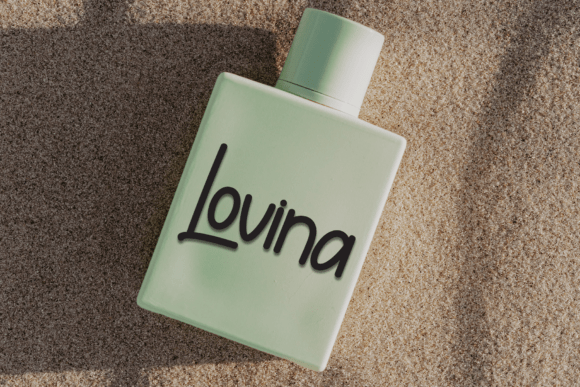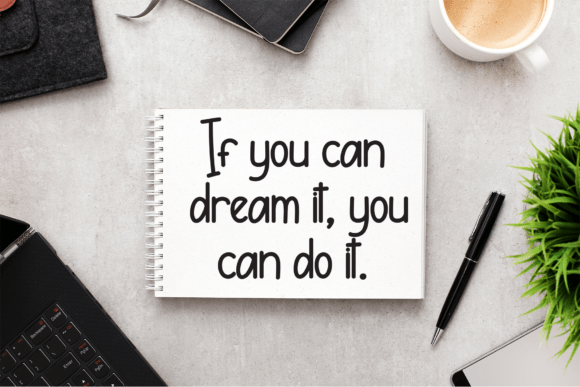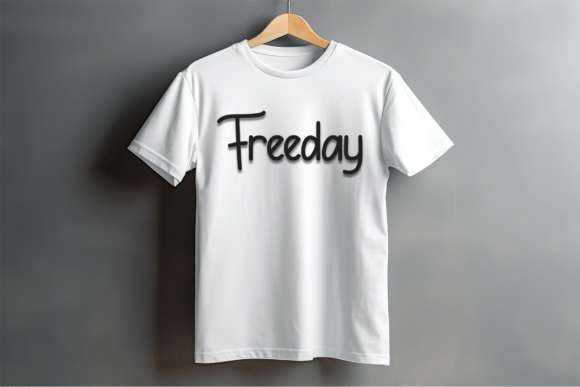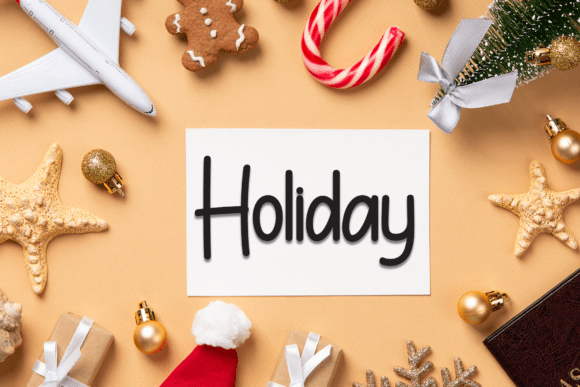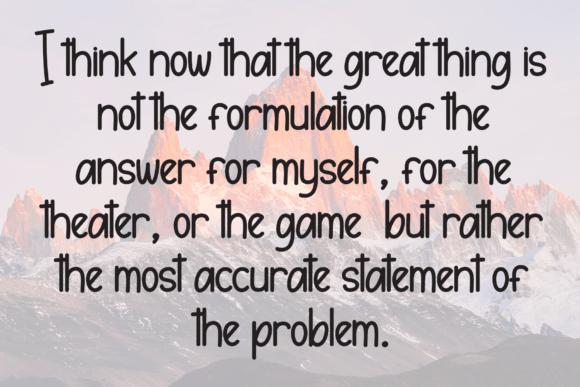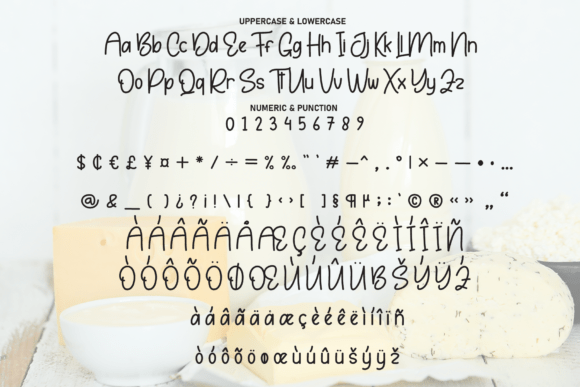
Discover the Whimsical Charm of Buttercup Font
Have you ever stared at a blank page, struggling to find the perfect words to express your emotions? Maybe it’s a heartfelt thank-you note, a wedding invitation, or a birthday card. Whatever the occasion, there’s something special about putting your thoughts into words that truly reflect your personality.
That’s where the delightful Buttercup Font comes in – a handwritten display font that brings a touch of playfulness and warmth to your designs. This charming typeface is designed to make your creations feel more personal and inviting, perfect for projects that require a sprinkle of fun and spontaneity. With the Buttercup Font, you can add a dash of whimsy to your designs and make a lasting impression on your audience.
As a designer, you know the value of a well-chosen font in elevating your work. The Buttercup Font is a valuable addition to your toolkit, offering a unique and charming style that’s sure to captivate your viewers.
Buttercup Font Key Features
- Unique Characteristics: The Buttercup font features a distinctive, elegant design with a mix of modern and vintage elements, making it suitable for various design projects, from wedding invitations to magazine layouts.
Designer Review: Buttercup Font
I’ve worked with the Buttercup Font for a few projects now, and overall, I think it’s a sweet addition to any design. ✨ The font’s playful and whimsical nature makes it perfect for brands that want to convey a sense of fun and approachability. It’s great for use in headings and titles, where its bold lines and rounded edges really shine.
One of my favorite things about Buttercup is its versatility. ✨ It comes in a range of weights and styles, making it easy to adapt to different design contexts. From formal to informal, Buttercup can handle it all with ease.
- ⚠️ Inconsistent spacing: I’ve noticed that the font’s spacing can be a bit wonky at times, especially in longer blocks of text.
- ⚠️ Limited language support: While Buttercup is great for English, I’ve found that it struggles with certain languages that require more complex character sets.
Overall, I think Buttercup is a solid choice for designers who want a fun and approachable font. While it may have its limitations, it’s a great addition to any design toolkit. With a little tweaking and experimentation, you can get the most out of this charming font.
The Buttercup font is a beautiful, elegant script font that is perfect for:
- Food and drink labels
- Gift tags and cards
- Personalized stationery and journals
To get the most out of the Buttercup font, experiment with different font sizes, colors, and combinations to create unique and eye-catching designs.